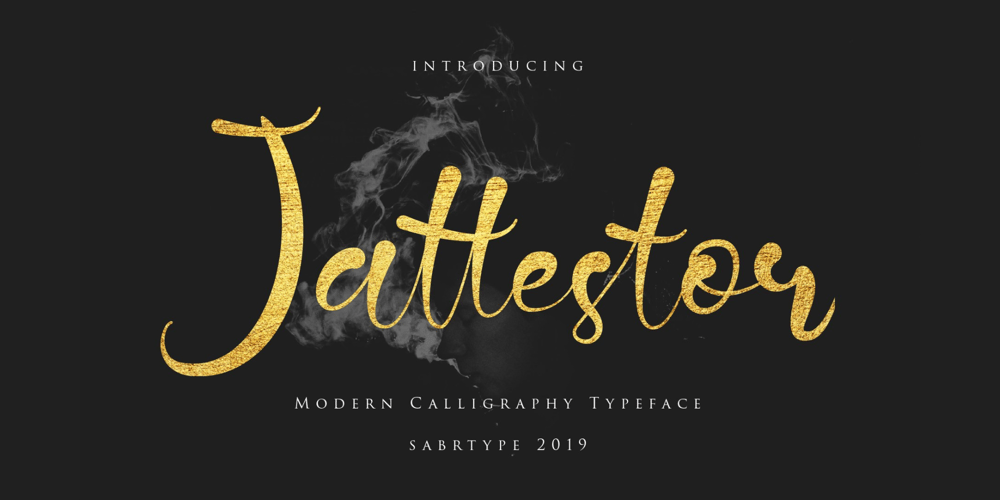
Jattestor Font Family was designed by Irpan Maulana and published by Sabrcreative. Jattestor contains 1 styles and family package options. Elevate your creative projects with the enchanting allure of the Jattestor Script Font. This typeface seamlessly melds the fluidity of handwritten script with a touch of artistic charm, making it an excellent choice for designs seeking a blend of authenticity and creativity.